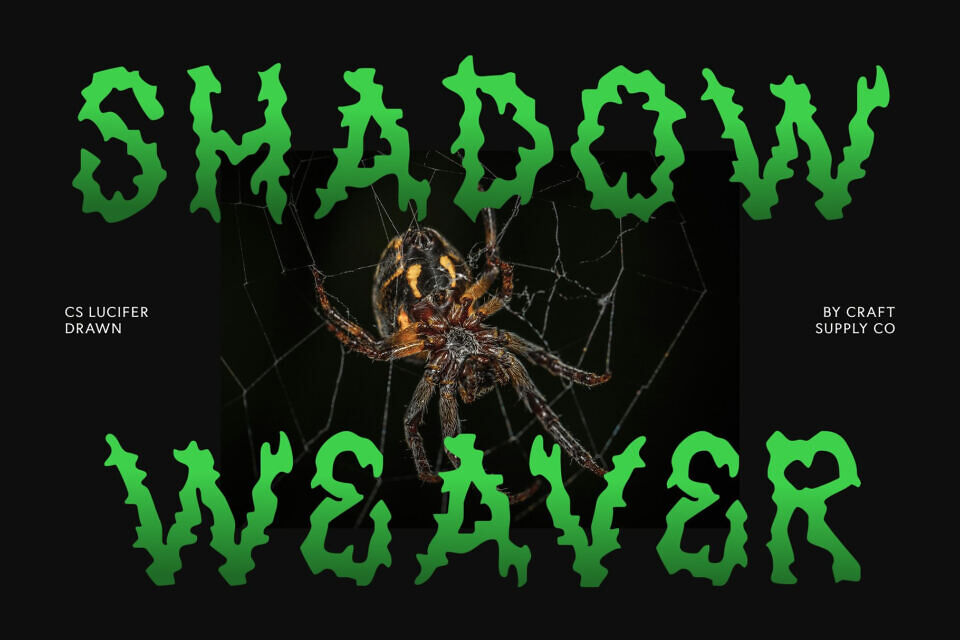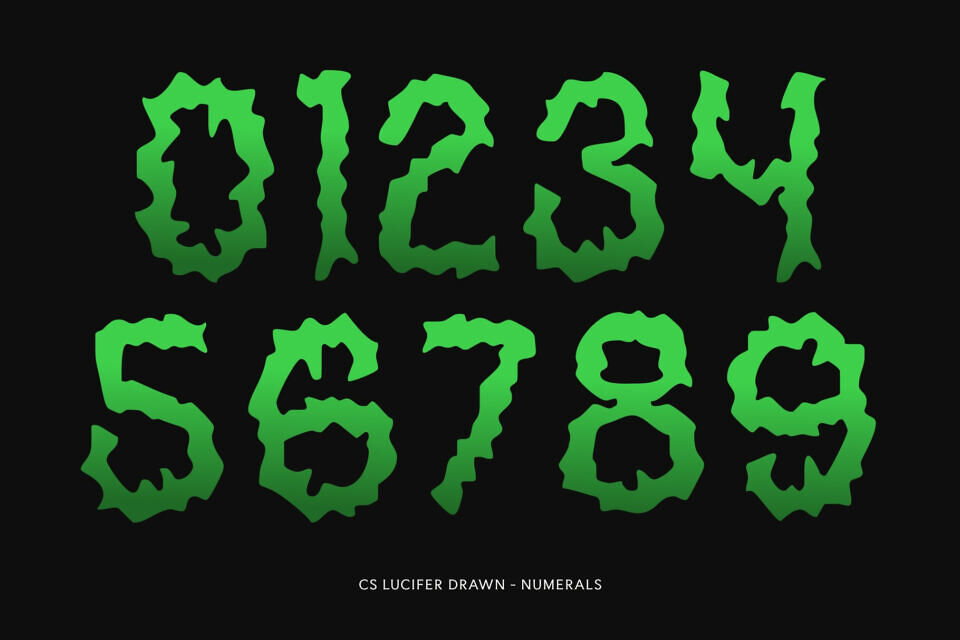
Lucifer Drawn is a brutal black metal display font crafted for designs that demand intensity and unapologetic energy. Its jagged spikes, razor-sharp forms, and chaotic structure embody the raw visual power of extreme music culture. Every letter screams attitude, making this font perfect for projects that thrive on darkness, rebellion, and high-impact visuals.
What makes this font stand out is its expressive drawn effect. The handmade, roughened texture enhances the brutality of each stroke, adding depth and an unpolished aesthetic that feels wild and organic. Ideal for creators who want an aggressive, dramatic, and intense typographic voice.